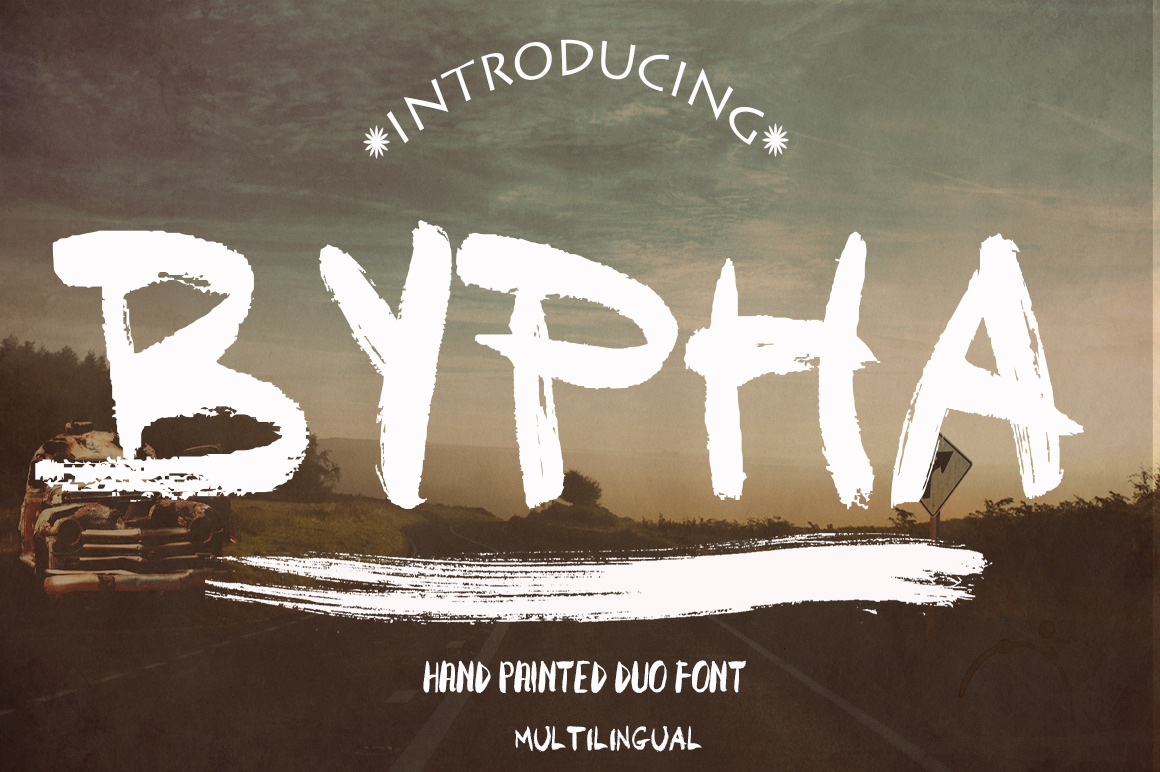
BYPHA 2 FONTS
GREAT BRUSH FONTs
Use Enjoy the Ride typeface to make logo marks, posters, T-shirt designs or anything that requires that personal touch